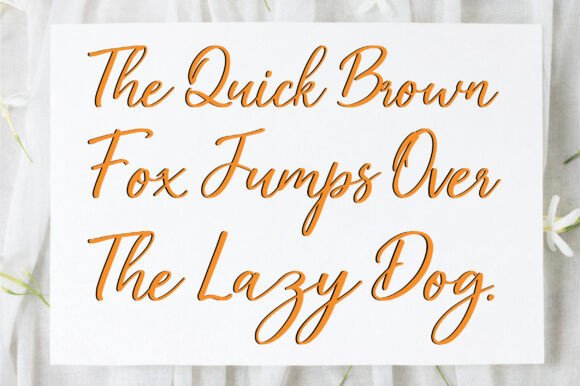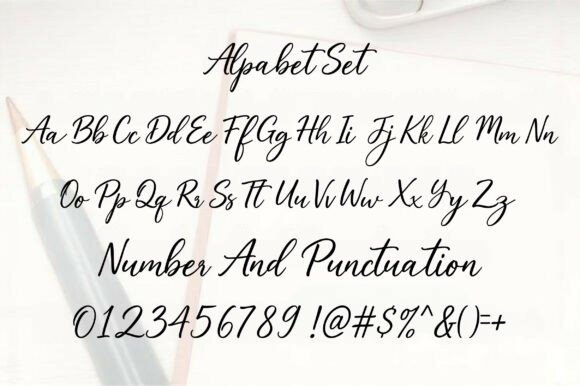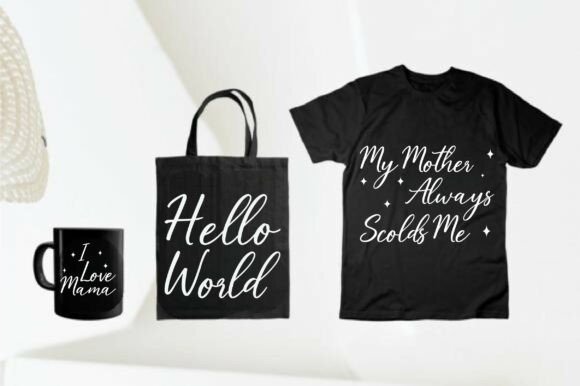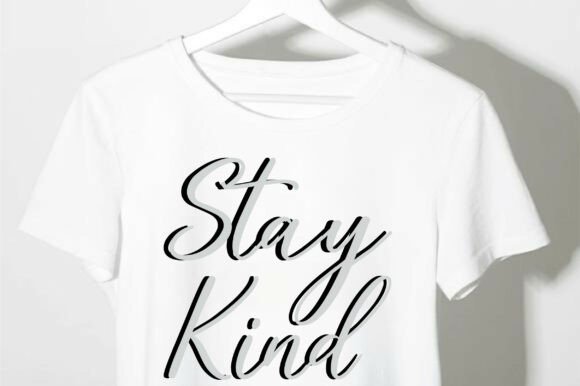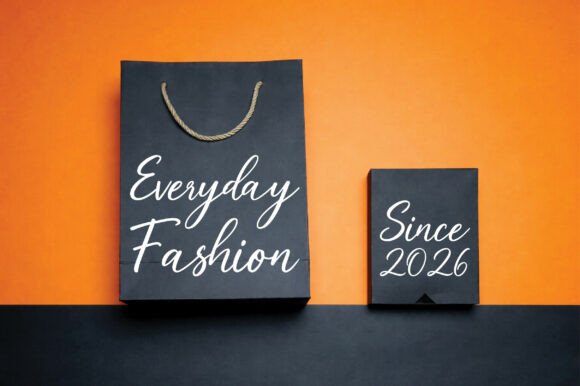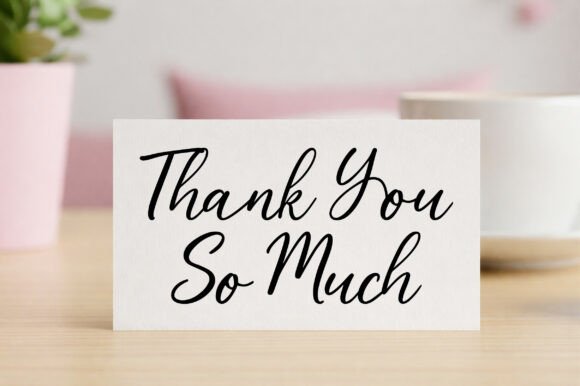
Introduction to Premium Handwriting Font
Premium Handwriting is a stylish and elegant script font that captures the natural flow of real handwriting.
With smooth curves, balanced strokes, and a modern aesthetic, this font brings a sophisticated yet personal touch to any design project It’s perfect for creating eye-catching visuals while maintaining readability and charm.
Key Features of Premium Handwriting Font
Why Choose Premium Handwriting Font?
Premium Handwriting Font offers exceptional quality and versatility, making it a valuable addition to your design toolkit. Whether you’re creating for personal projects or commercial use, Premium Handwriting Font delivers professional results.